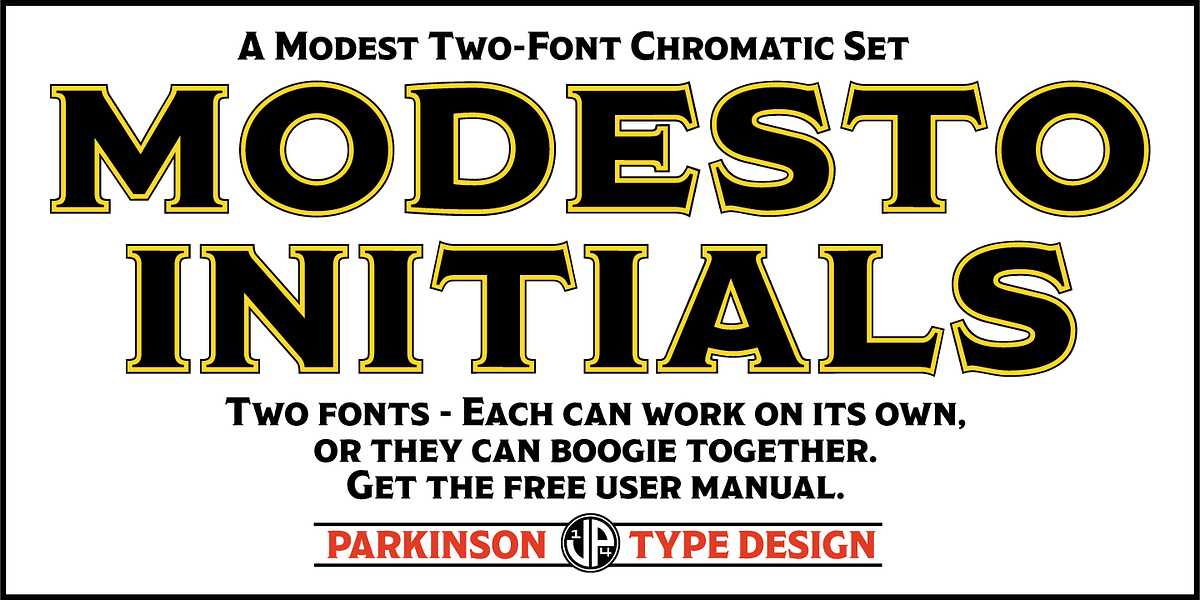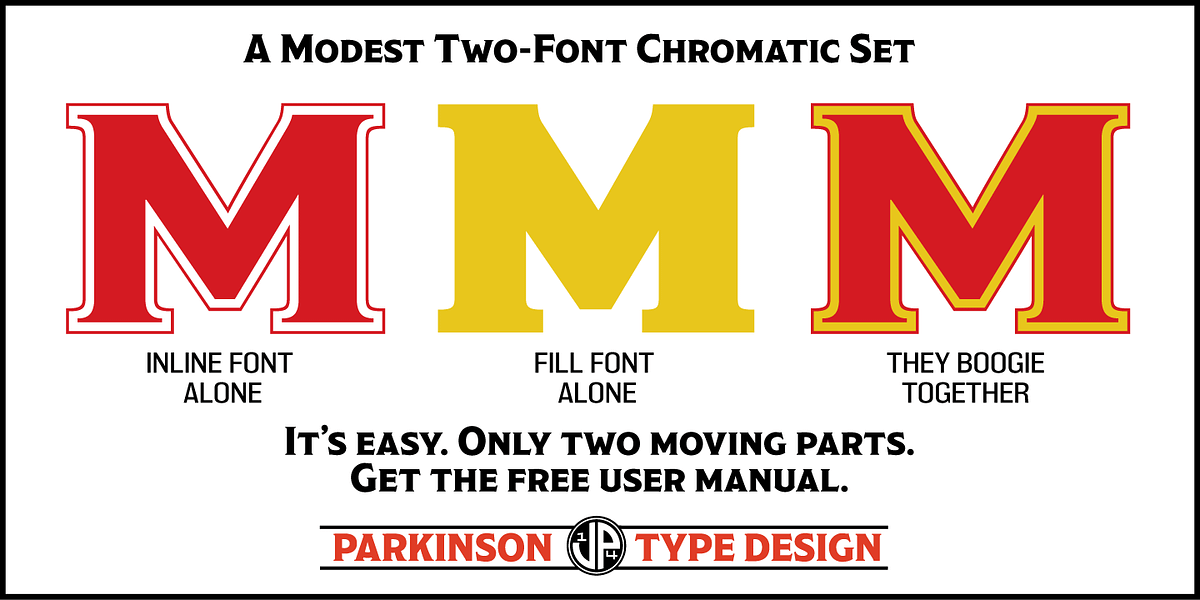
Modesto Initials
The Modesto Inline font is a flared display serif font designed to evoke the style of sign painters from the late 19th and early 20th centuries. Its inspiration comes from the lettering used for the Ringling Bros. and Barnum & Bailey Circus logo. The font is part of a larger family that includes a companion 'fill' font, specifically tailored to be layered behind the Inline version for added visual impact. While both fonts can function independently, they are intended to be used together for maximum effect.